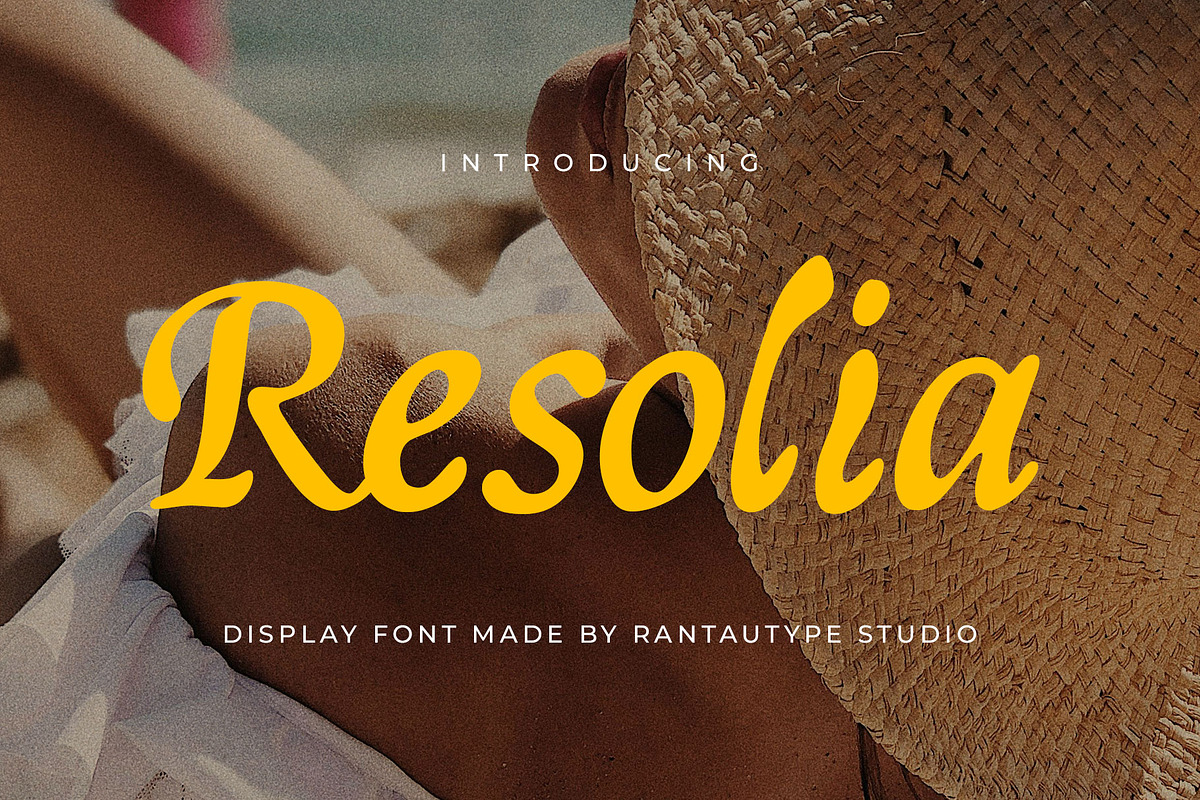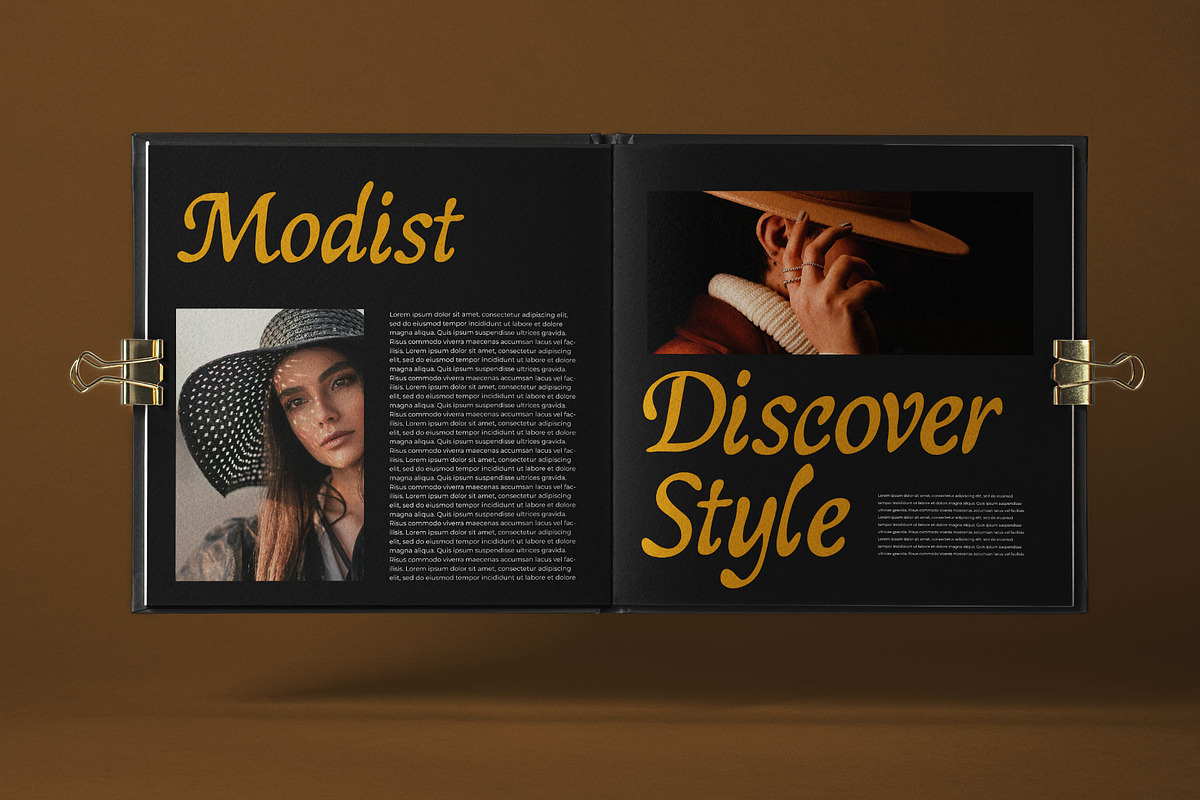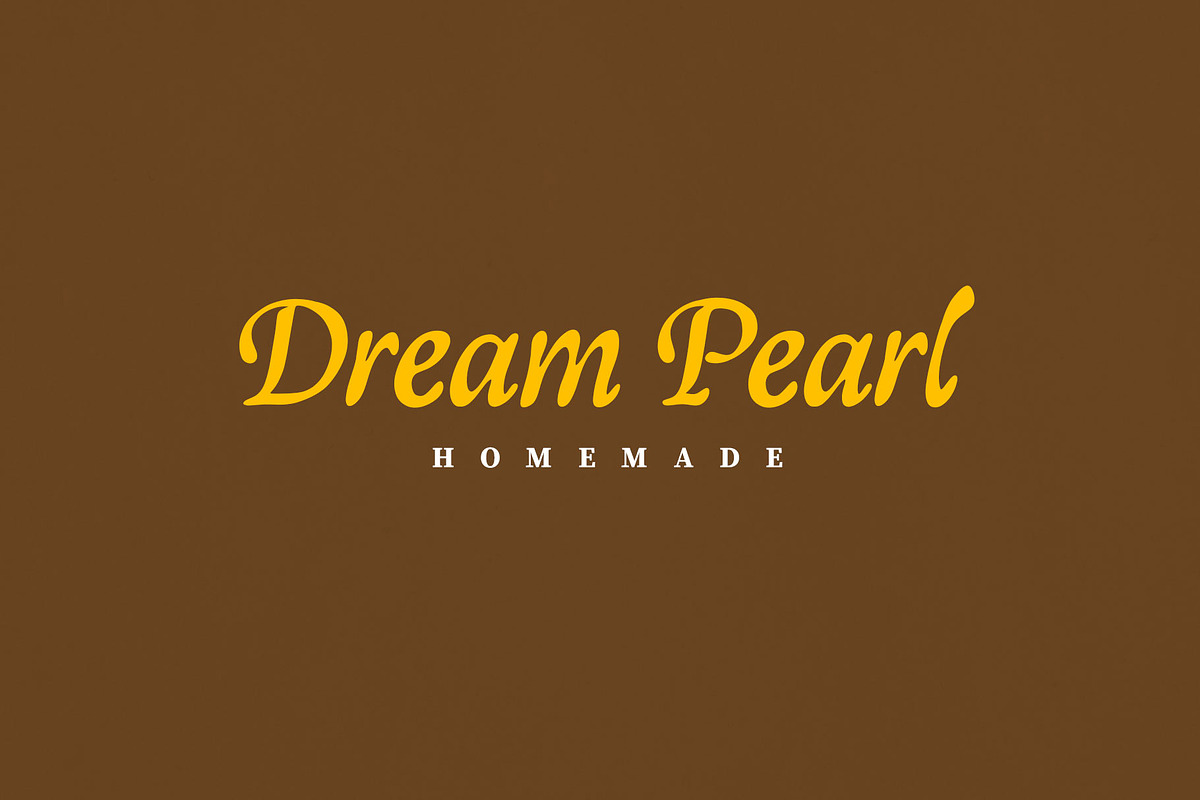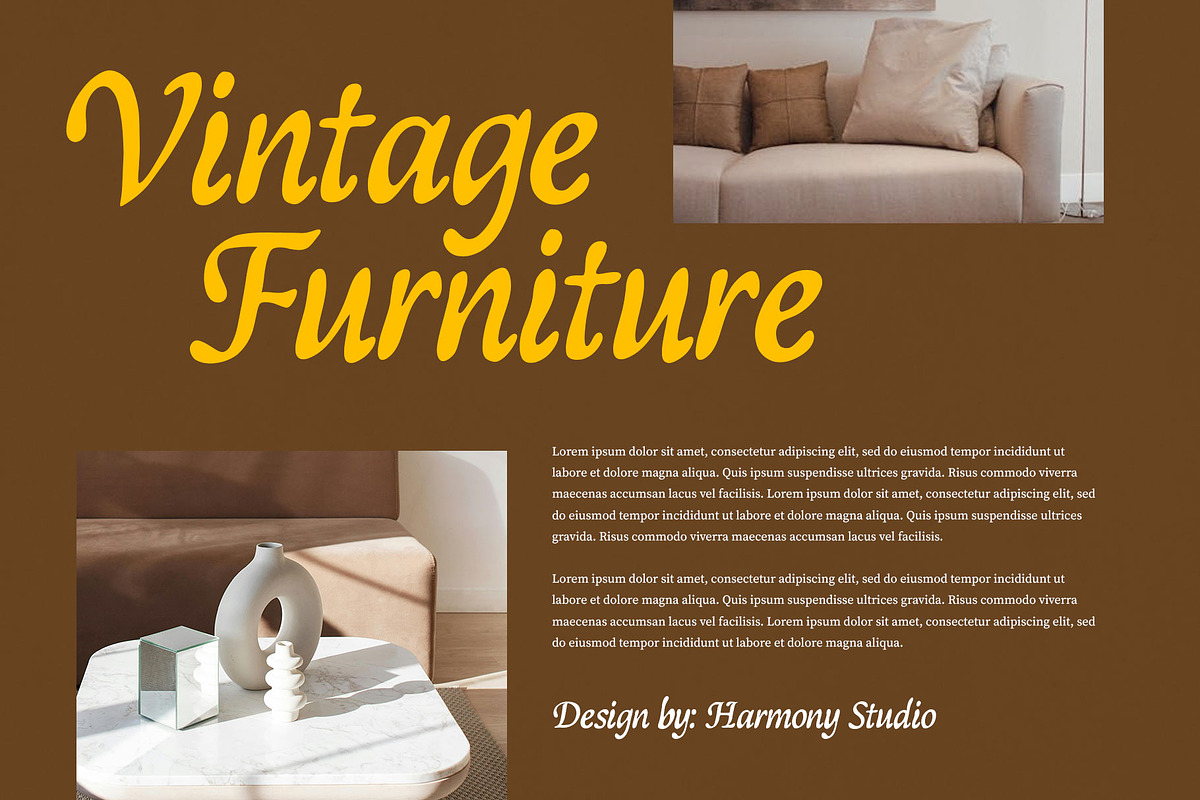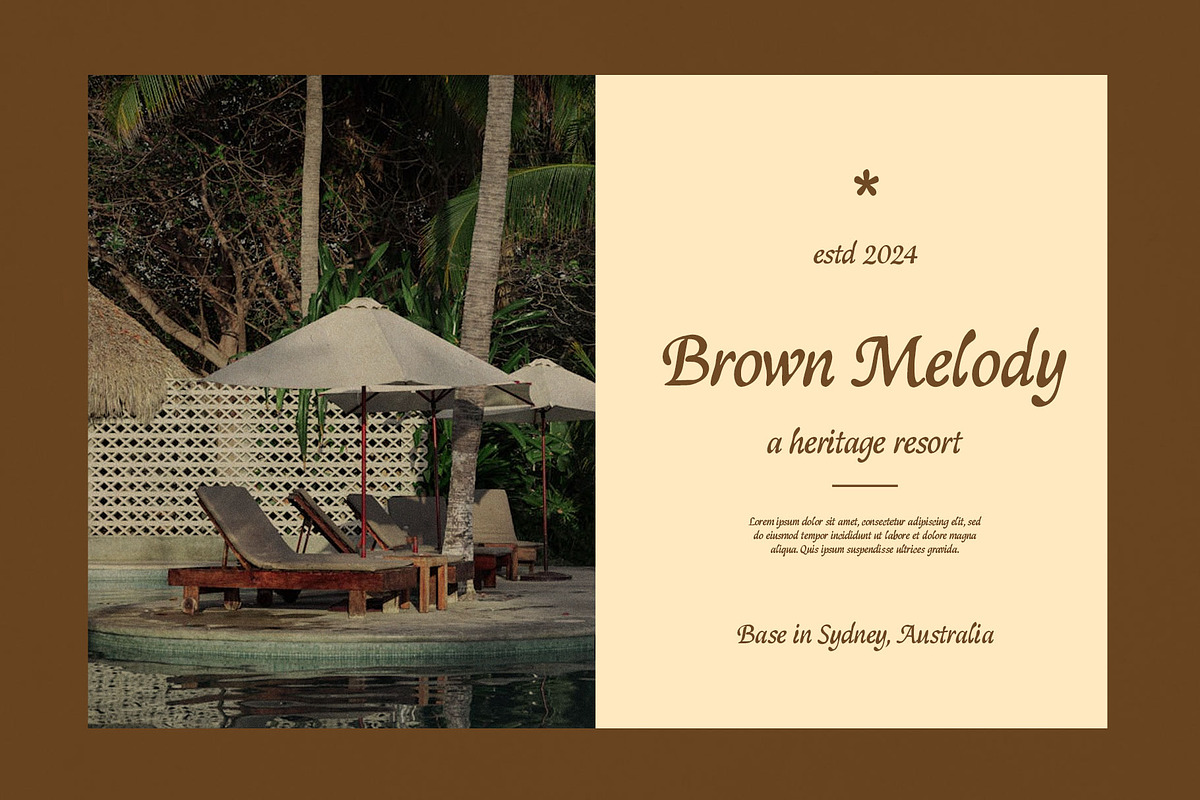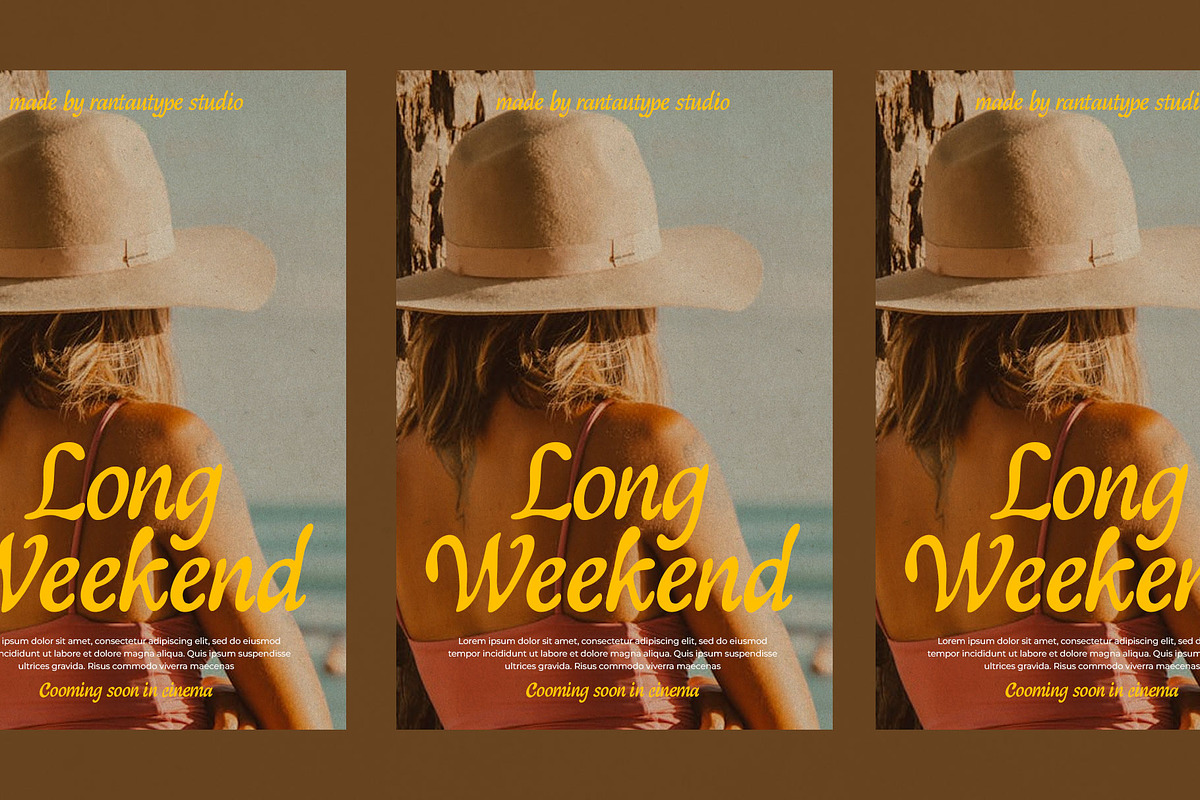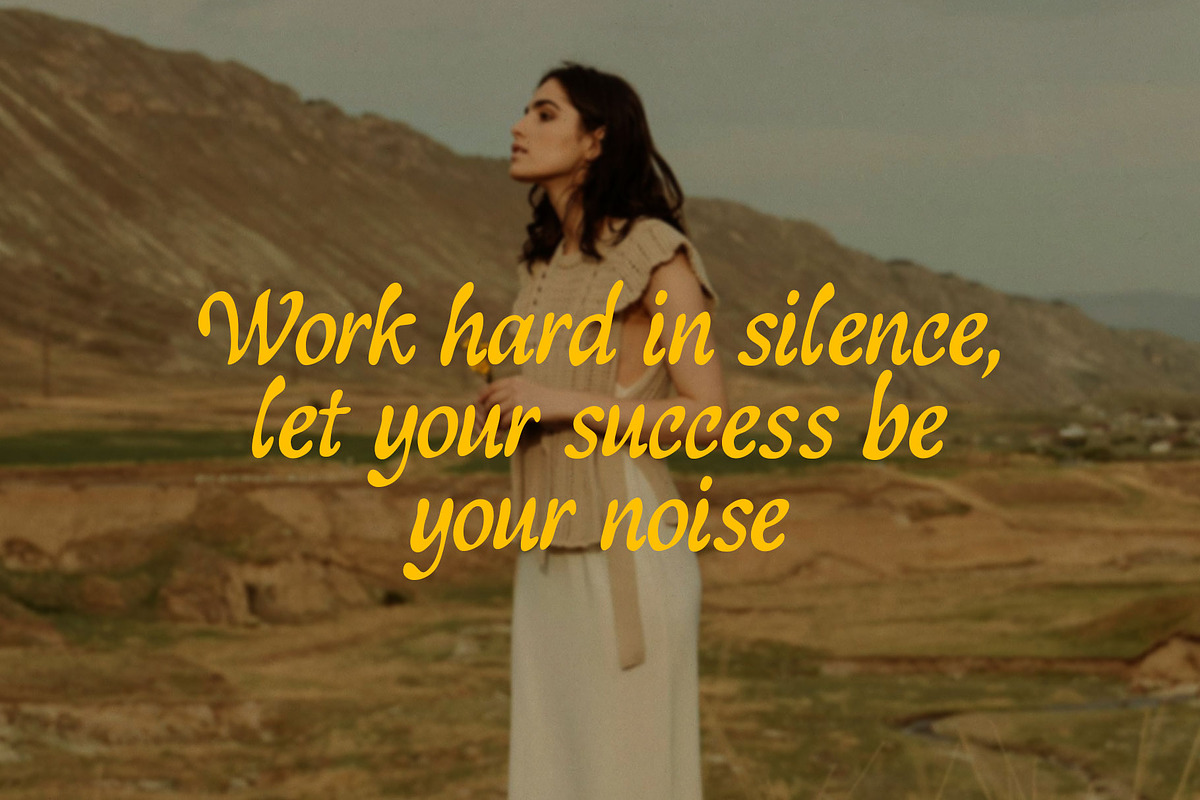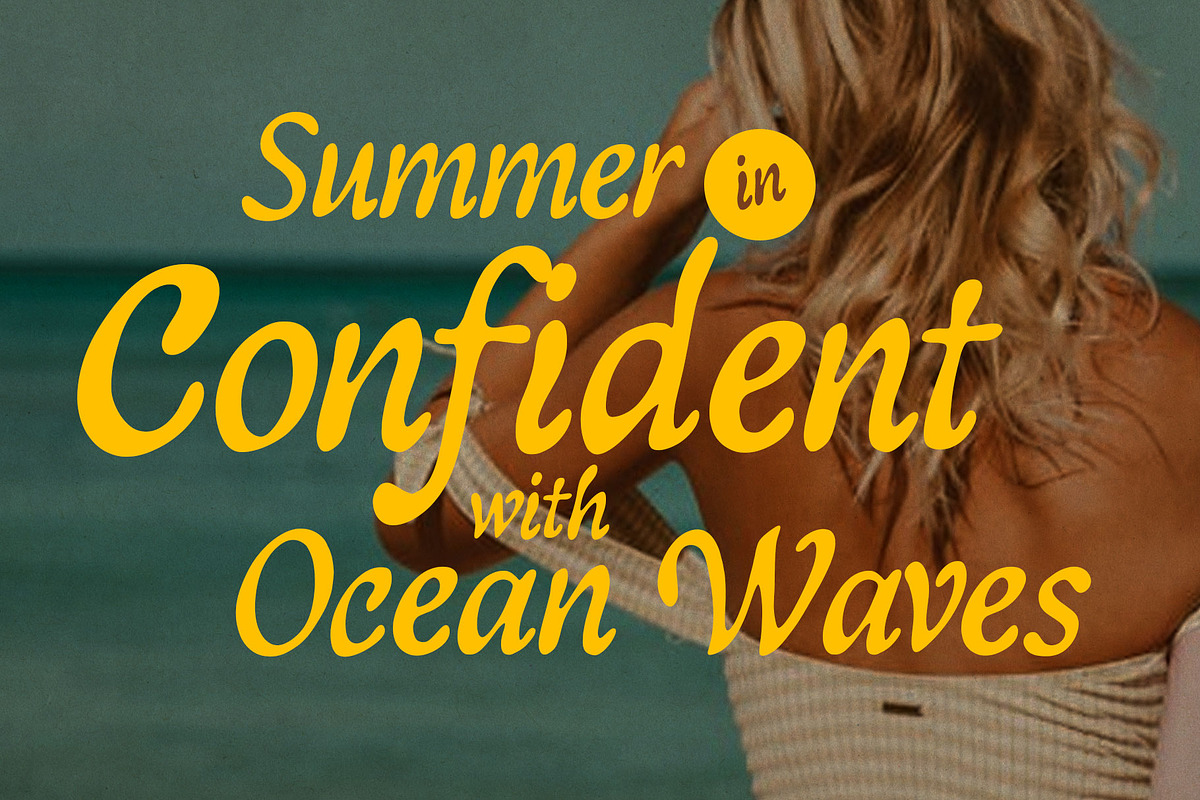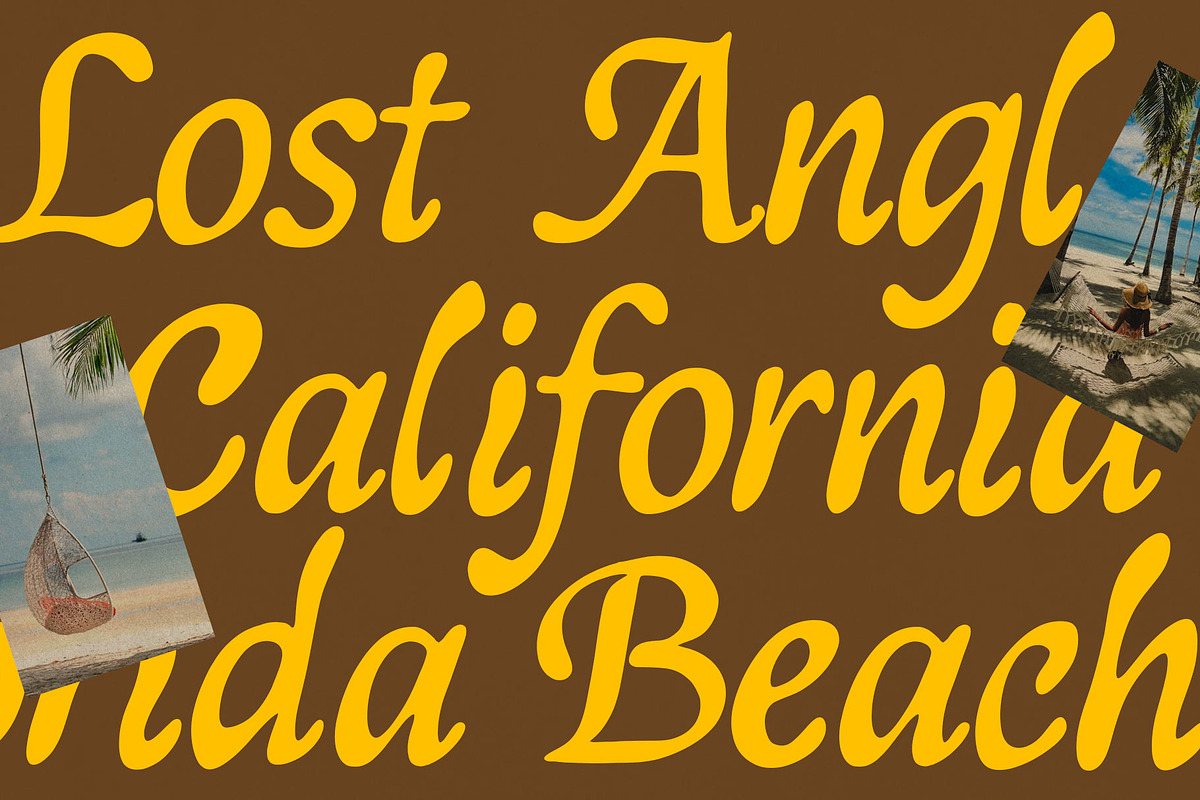
Resolia Classy Display Font
Resolia is display font made by rantautype studio with classy look. Resolia is a perfectly choice for any creative endeavor, creating, modern, lifestyle design such as logotype, title, cover, branding, invitations, wedding designs, display and magazine, social media posts, advertisements, printed quotes, product packaging, corporate brand, product designs, labels, photography, watermarks, special events and any other project with elegant touch.
- Standart Glyphs
- Alternate and ligature